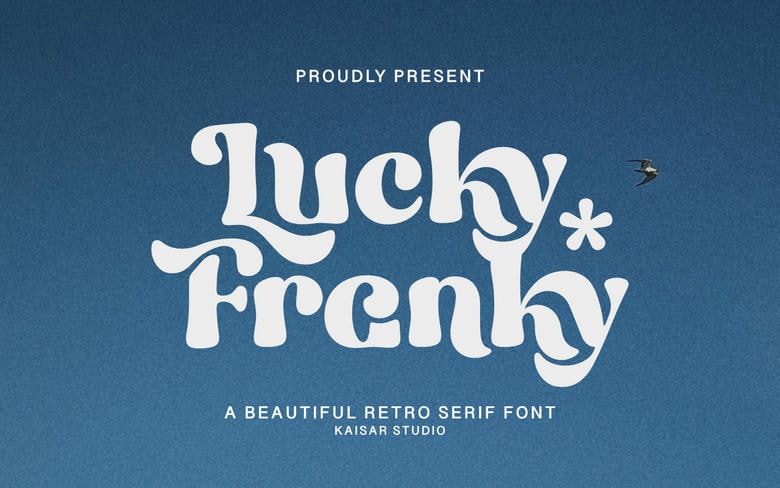
Lucky Franky Font
Lucky Franky is a typeface that blends a serif typeface with a style, giving it a unique and refined appearance. It works well for elegant logos, book or movie titles, fashion brands, magazines, clothing, lettering, quotes, and more.
Lucky Franky Serif Font